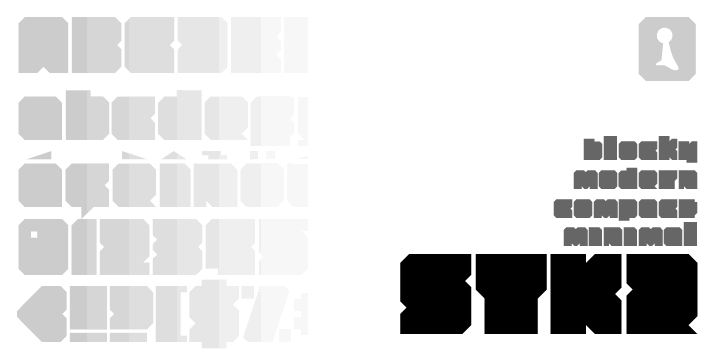
First seen on MyFonts: December 15th, 2009 STKRHaving looked at examples of contemporary graphic design, both online and in printed publications, I began noticing a trend of using very blocky but barely legible text. This trend spread across magazines, t-shirts and in random examples of graphic design, for no apparent reason. Fast forward a few months, and I had the idea of creating my own version of this catching typeface - but with the use of lowercase letters, symbols and even accented characters. I opted for sharp, clean and consistent angles, as opposed to the use of curves and other willy-nilly additions (or subtractions). STKR was created by “sculpting” letters out of a 7x9 block, using triangles (of the same size) and rectangles to “carve” pieces out. The lowercase letters and smaller characters were carved out of 7x7 blocks, with extras bits “formed” from the pieces that were cut out. It was a lot like using a hot knife on styrofoam. This font looks very similar to Bigfoot (a blocky typeface created by Canadian Type), but was designed without any prior knowledge of the font. While there are also other fonts with a similar approach, STKR has the benefit of having a “full” set of characters - including accents, punctuation and even a few mathematical symbols. STKR got its name from the idea of “stacking” letters together to form a word, or even complex shapes, like building blocks. Try it as a headline, or as a mask for a background image or gradient. Not quite what you’re looking for? Try looking at more fonts like this. ‘STKR’ is a trademark of DM Founts. |